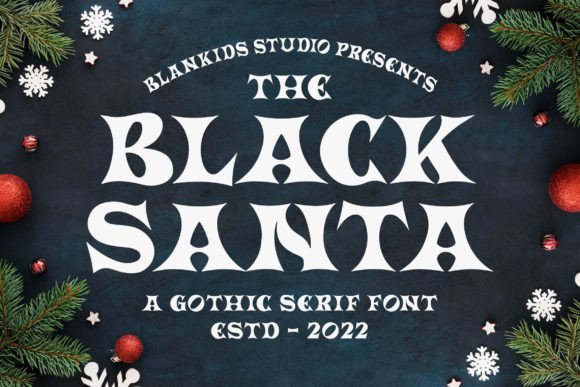
The Magic of Winter Design: Unwrapping the Black Santa Font
There’s something special about the holiday season – the twinkling lights, the cozy atmosphere, and the endless possibilities for creative expression. As a designer, have you ever found yourself searching for the perfect font to capture the essence of winter? Perhaps you’ve stumbled upon a festive project and needed a stylish way to convey the magic of the season. Whatever the case, you’re in luck – we’re about to unwrap the Black Santa Font, a stunning addition to your winter-themed projects.
This Gothic-style display font is more than just a pretty face; it’s a valuable tool for designers looking to add a touch of sophistication and festivity to their work. With its subtle, elegant vibe, the Black Santa Font is perfect for all your winter projects, from greeting cards and social media graphics to holiday-themed packaging and advertisements.
Black Santa Font Key Features
- Unique Characteristics: The font’s distinctive design and bold lines give it a striking appearance, making it ideal for use in logos, headings, and titles.
Black Santa Font Review
I recently had the chance to work with the Black Santa font, and I must say it’s an interesting choice for any design project. Here are my thoughts on its strengths and weaknesses.
- The unique, edgy feel of the font makes it perfect for projects that need a bold statement. It’s great for headings, titles, and other text elements that require attention.
- The font is highly legible, even at smaller font sizes, which is essential for any design that requires readability.
- Black Santa font is highly customizable, allowing you to adjust the weight, width, and other parameters to suit your design needs.
- The font’s edgy feel might not be suitable for every design project, particularly those that require a more traditional or elegant look.
- The font’s boldness can make it difficult to read in certain contexts, such as in long blocks of text or at very small font sizes.
The Black Santa font is a great choice for designers who want to add a bold, edgy touch to their projects. While it may not be suitable for every design need, it’s definitely worth considering for projects that require a statement font. With its high customizability and legibility, it’s a versatile font that can be used in a variety of contexts.
Black Santa Font is perfect for creating a festive and modern look for your designs. Use it for:
- Christmas and holiday-themed designs
- Seasonal marketing materials
- Personalized gift tags and cards